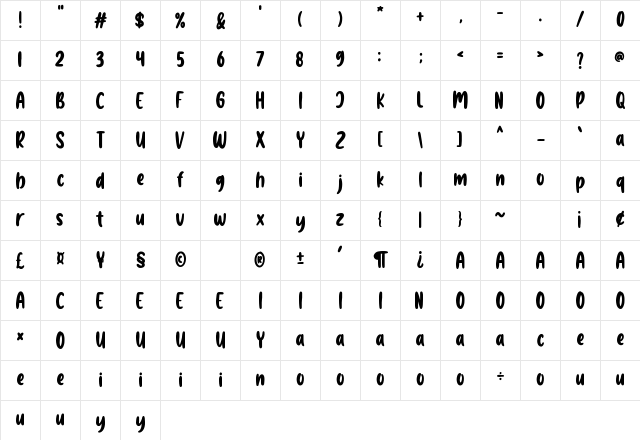
Beach Please Regular Free Font
Beach Please Regular
Foundry: Graphix Line Studio
Designer: Aldi Raya Pradipta
Design Context for Beach Please
Beach Please is a composed and adaptable typeface that performs quietly and consistently across a wide range of design contexts.